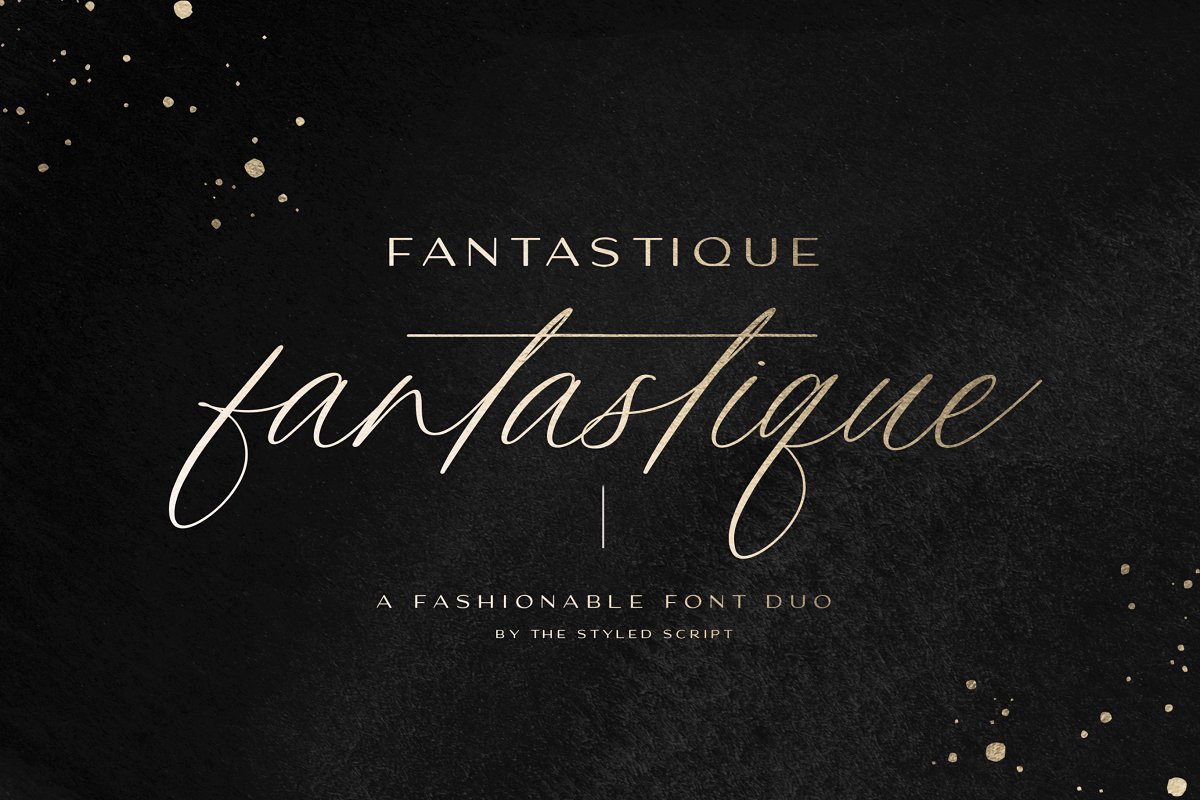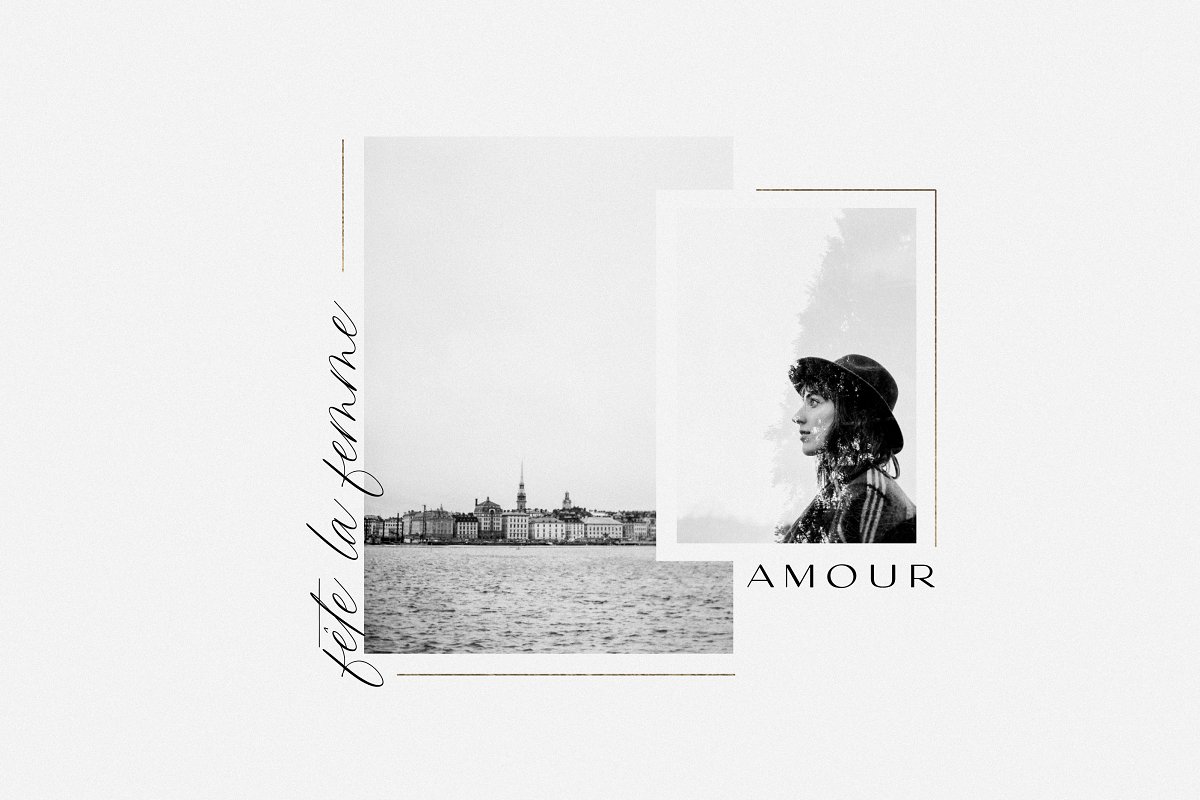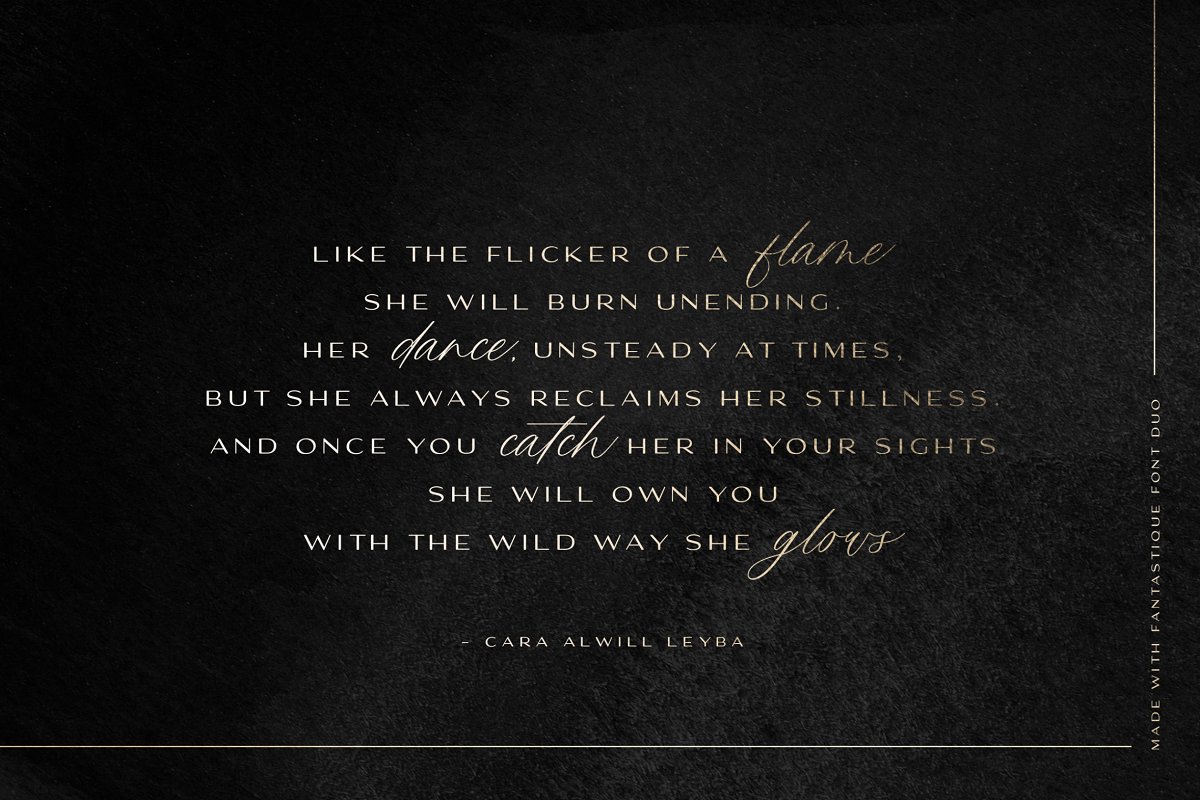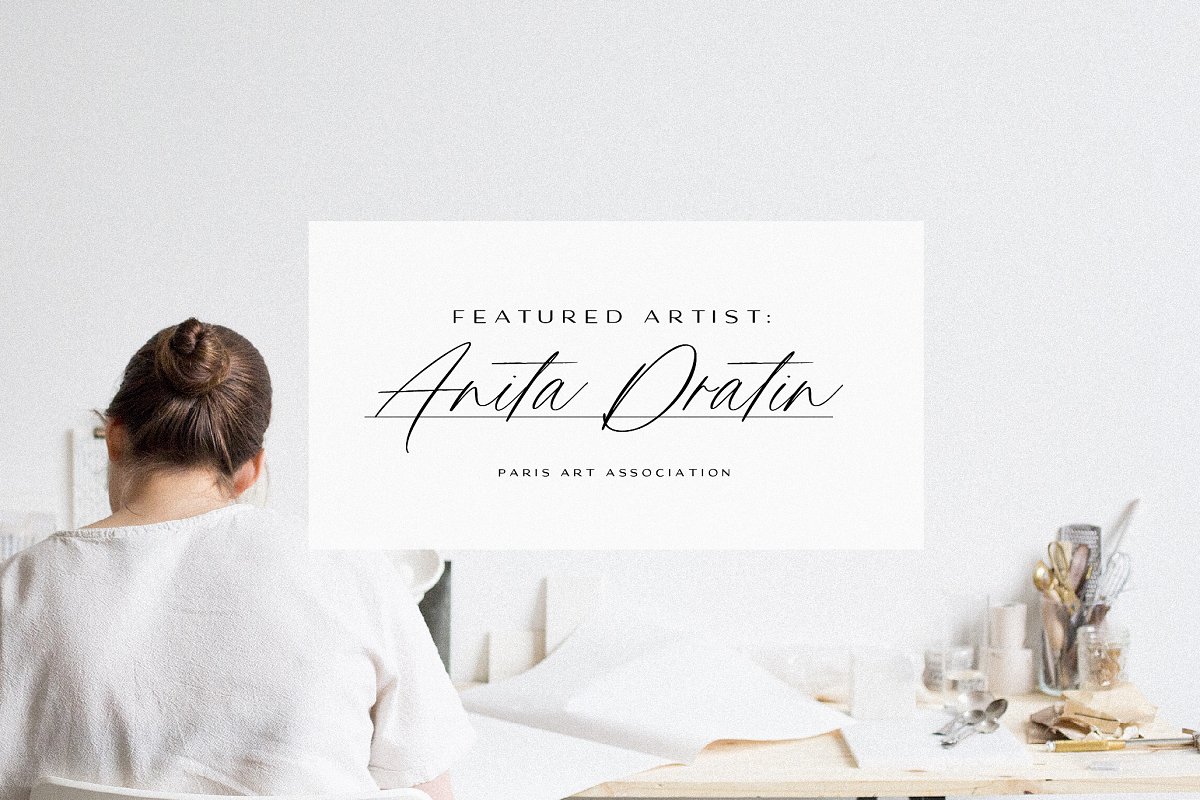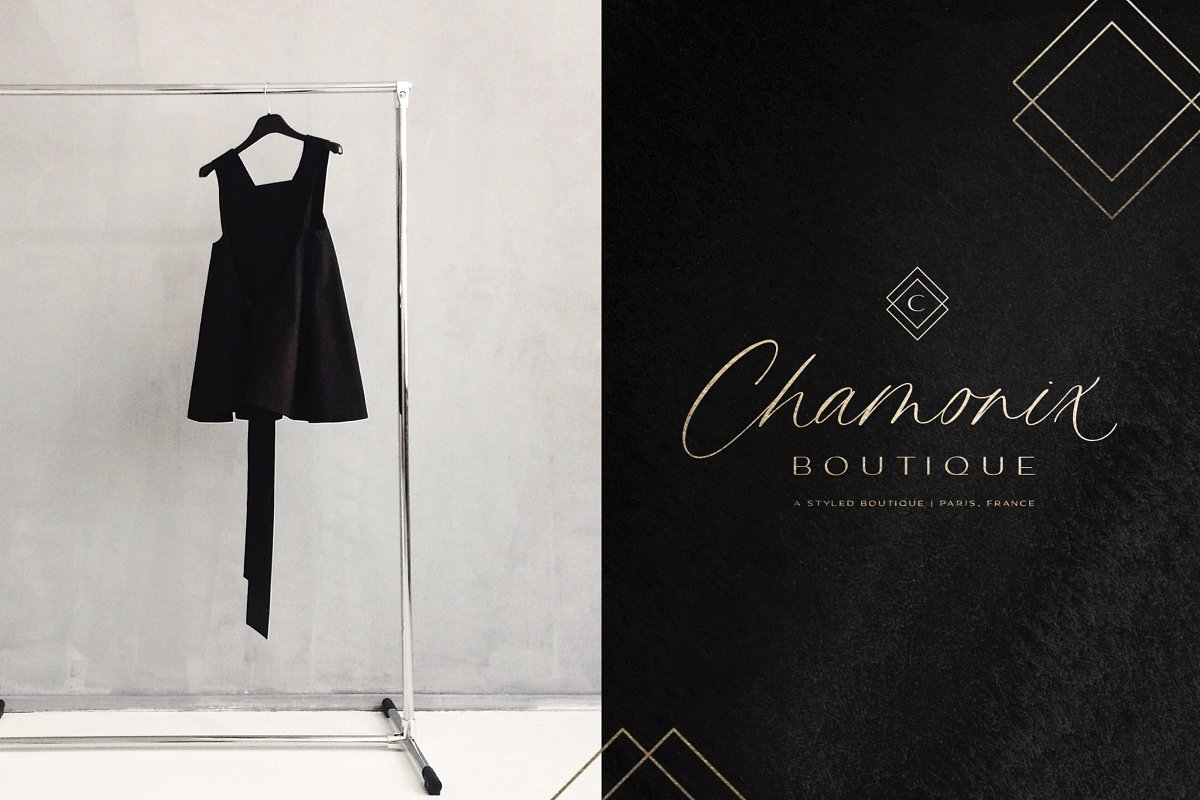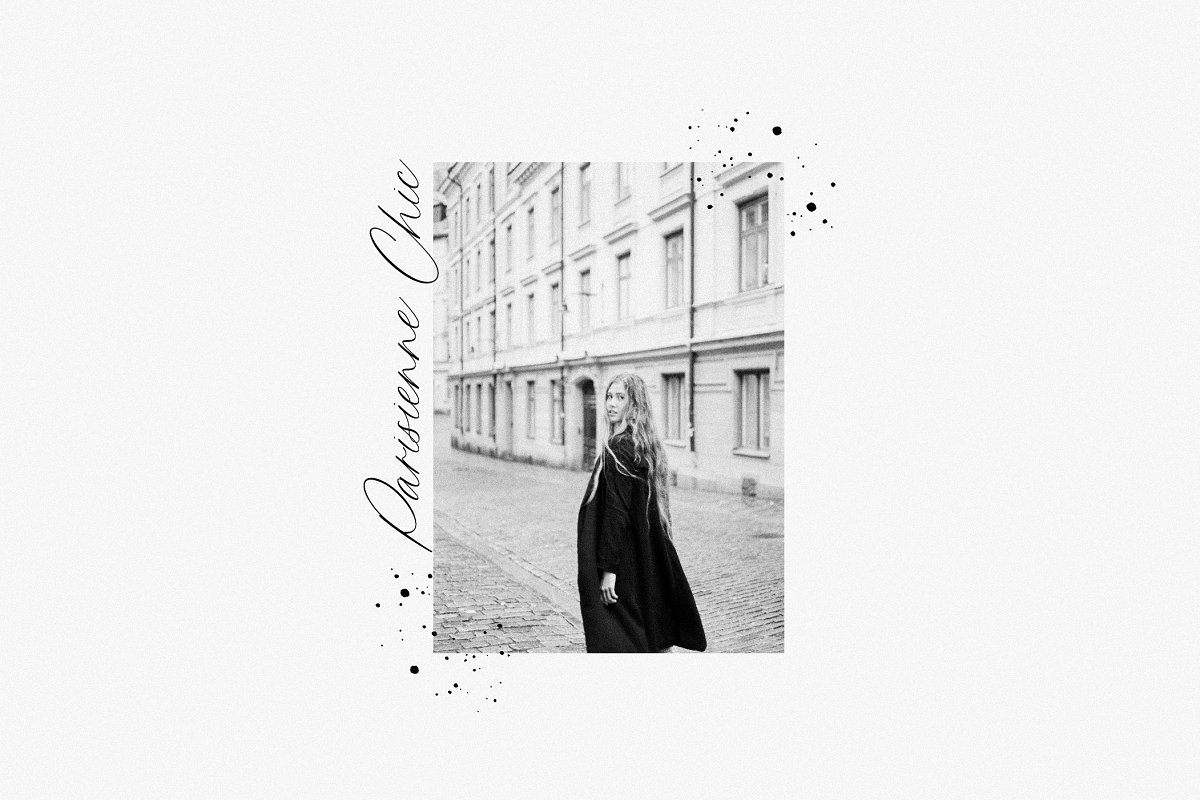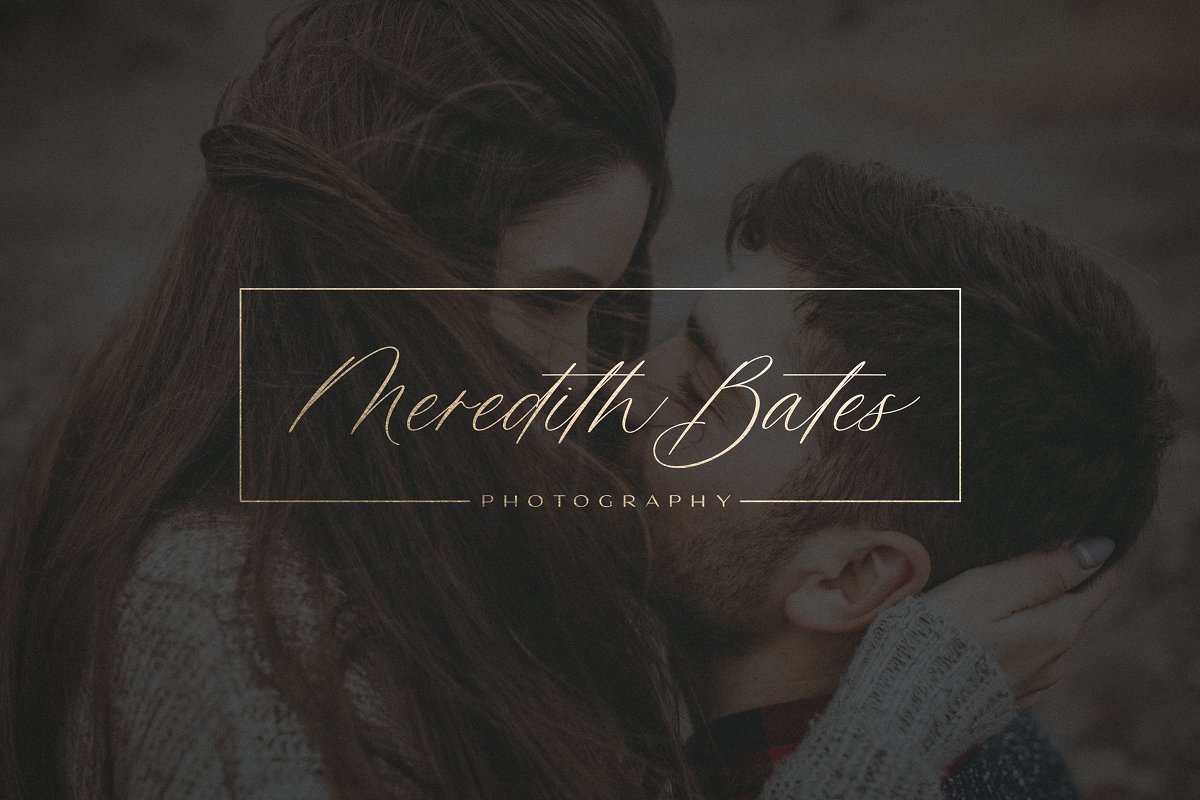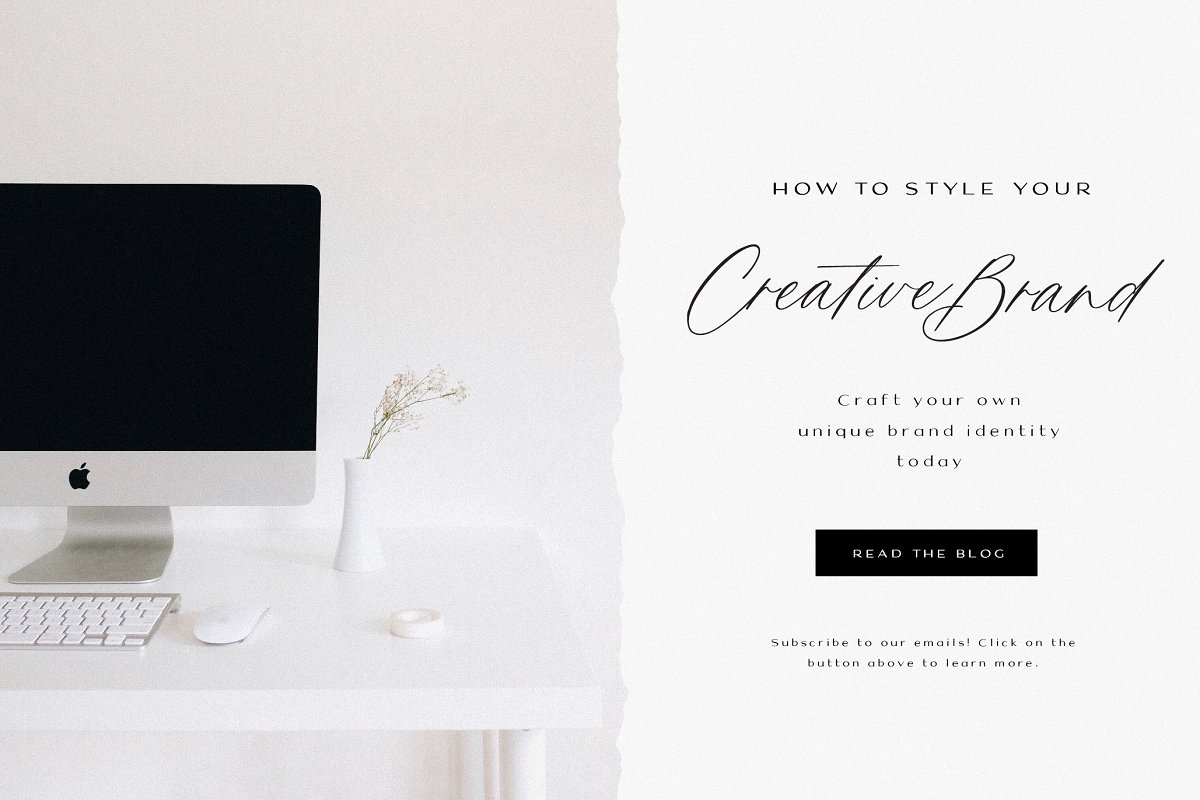
About the Fantastique Font Duo
Add some refined luxury to your project with the Fantastique Font Duo! The Fantastique Script was created as a casual, chic script perfect adding a refined, hand-written look to your designs, The Fantastique Sans is a high contrast extended sans serif font perfect for adding some fashionable drama, Both are perfect for creating beautiful logos, styled quotes, brand design, wedding invites, social media, blogs, and so much more! WHAT’S INCLUDED :• Fantastique Script Font (otf, ttf, woff) — Uppercase, lowercase, numbers, symbols, punctuation, multilingual support